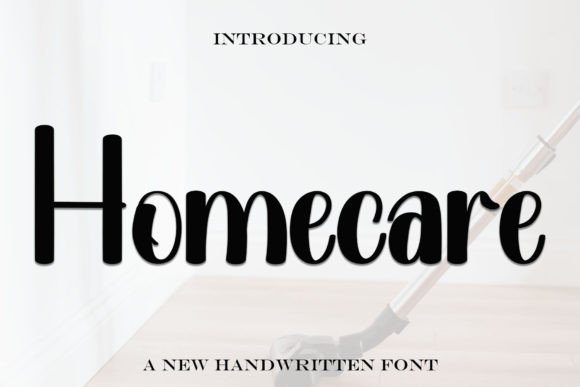
Journey into the realm of sophistication and timeless elegance with Homecare Font, a captivating script font family born from the fusion of classic calligraphy and contemporary flair. With its balanced strokes and meticulously crafted design, Homecare promises to elevate your projects to new heights of visual appeal.
Unleash your creativity and let the Homecare Font family guide you through a world of infinite possibilities. Its meticulously crafted glyphs and ligatures, effortlessly accessible via PUA encoding, empower you to adorn your designs with an array of stunning characters and harmonious combinations.
Picture your designs adorned with Homecare's enchanting script, evoking a sense of nostalgia and charm. Its timeless essence adds a touch of refinement to wedding invitations, branding projects, social media posts, and any creative endeavor yearning for a touch of elegance.
As a font designed with LED displays in mind, Homecare shines effortlessly on digital platforms, capturing attention and leaving a lasting impression. Its clear and legible characters ensure effortless readability, making it the perfect choice for captivating presentations, eye-catching headlines, and impactful marketing campaigns.
Homecare Font is your gateway to a world of visual storytelling, where emotions intertwine with aesthetics. Its captivating curves and delicate details invite your audience on an enchanting journey, leaving them spellbound by the beauty of your creations.
With Homecare Font, you hold the key to unlocking a world of captivating designs, where every letter whispers a tale of elegance and sophistication. Embrace the timeless charm of Homecare and let your creativity soar to new heights. Immerse yourself in the world of Homecare Font, where beauty and functionality converge to create a masterpiece of design.